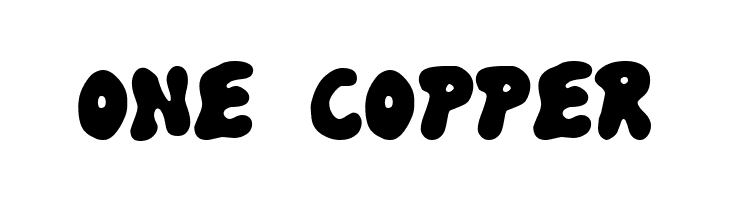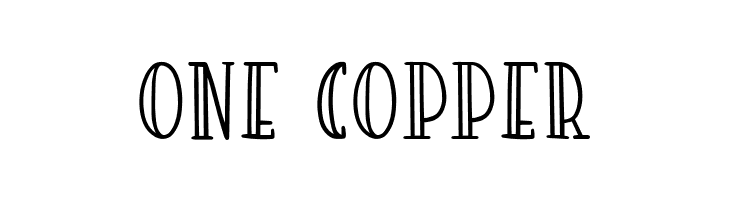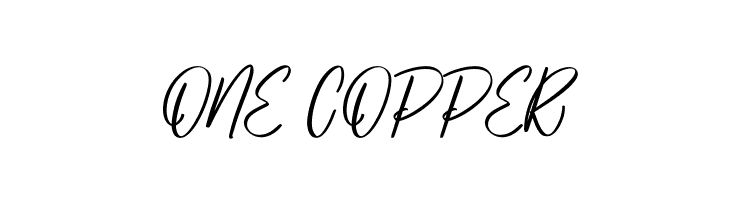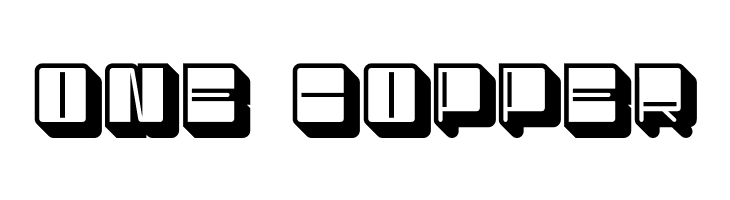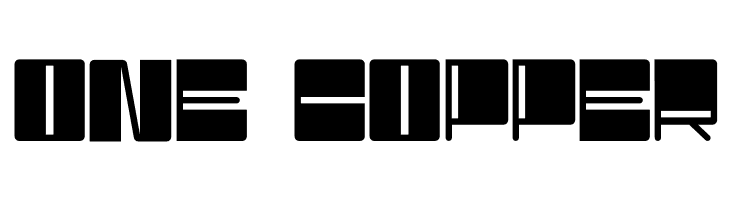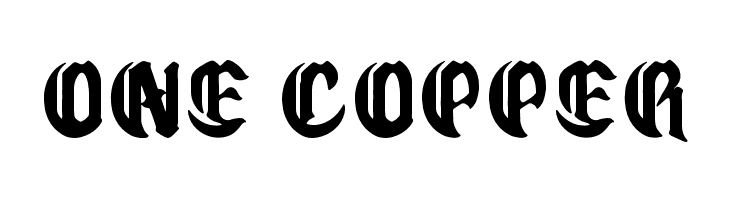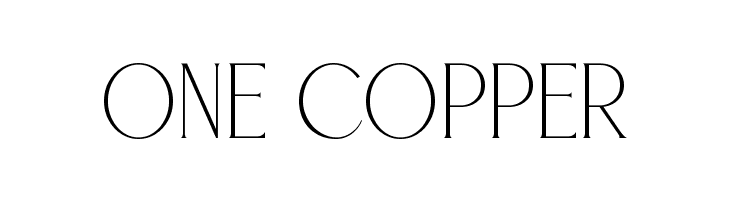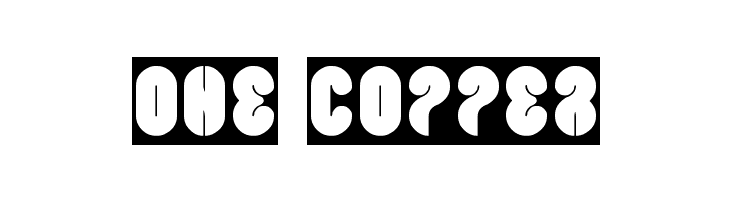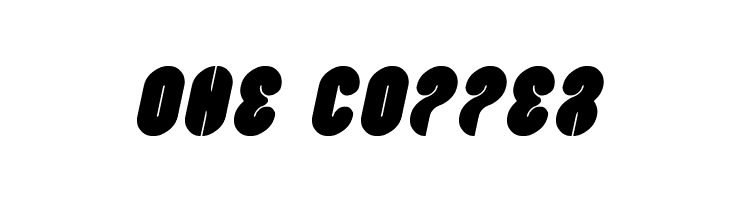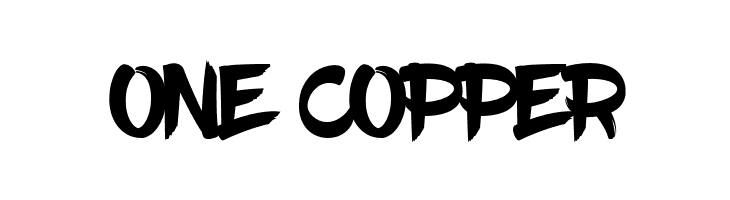
A decorative and whimsical font with elongated serifs and a playful style.
A modern serif font with high contrast and elegant, elongated strokes.
A modern, elegant font with thin, elongated strokes and high contrast.
A modern, cursive font with elegant, flowing strokes and a slight slant.
A bold, playful, and bubbly font with a cartoonish, balloon-like appearance.
A bold, brush-stroke font with an energetic and artistic style.
A decorative font with interconnected dots and splatters, resembling ink blots.
A bold, playful font with bubble-like, rounded characters.
A bold, bubble-like italic font with a playful and modern style.
A bold, playful font with rounded, bubble-like characters.
A bold, intricate Blackletter-style font with sharp, angular lines and dramatic curves.
A bold, geometric font with fragmented, block-like characters.
A bold, geometric font with a three-dimensional, decorative style.
A bold, geometric, and condensed font with a modern, block-like appearance.
A bold, modern font with a unique striped pattern and rounded characters.
A bold, 3D block font with shadow effects, offering a modern and impactful style.
A bold, blocky font with a distressed, stamped texture for a rugged, industrial look.
A pixelated, retro-style font with bold, blocky characters and rounded corners.
A playful, block-style font with bold, uppercase letters in 3D blocks.
A decorative set of holiday-themed symbols and characters.
A bold, playful handwritten font with rounded, slanted characters.
A bold serif font with strong, angular serifs and a modern yet classic aesthetic.
A modern, geometric font with smooth curves and clean lines.
A bold, modern font with elongated vertical strokes and angular edges.
A playful, hand-drawn outlined font with a casual and friendly vibe.
A playful, handwritten-style font with bold, dynamic strokes.
A playful, handwritten font with bold, rounded strokes and a dynamic slant.
A playful, handwritten font with a casual and informal style.
A modern, geometric font with tall, narrow characters and consistent stroke width.
A bold, geometric font with a 3D effect and outlined characters.
A bold, 3D italic font with outlined characters and a modern, dynamic style.
A bold, condensed font with tall, narrow characters for a strong impact.
A bold, expanded font with a geometric and modern design.
A bold, expanded, and italic font with a modern, dynamic style.